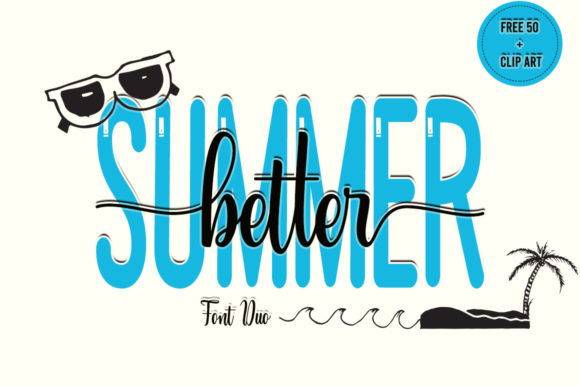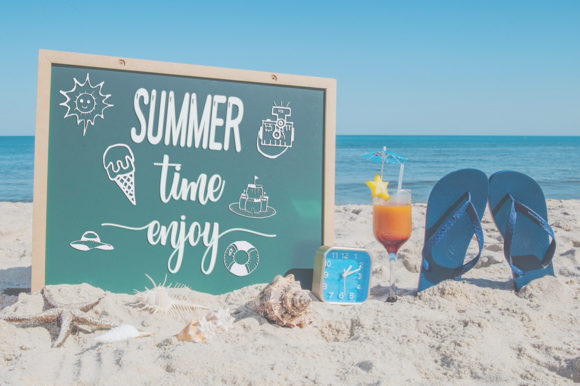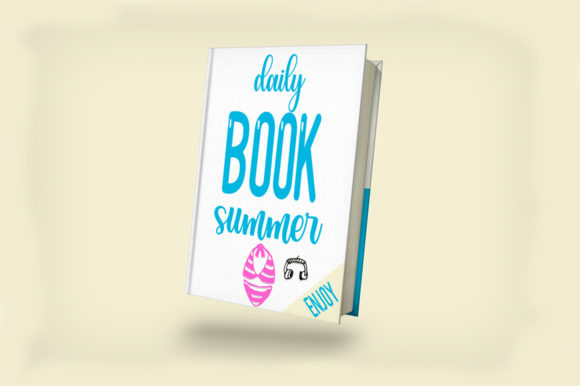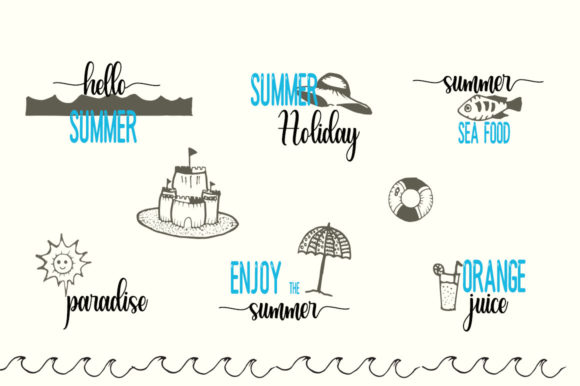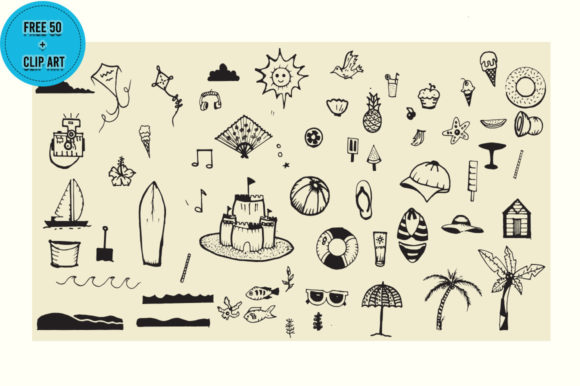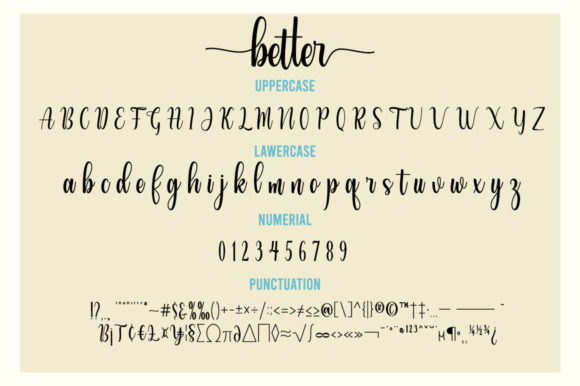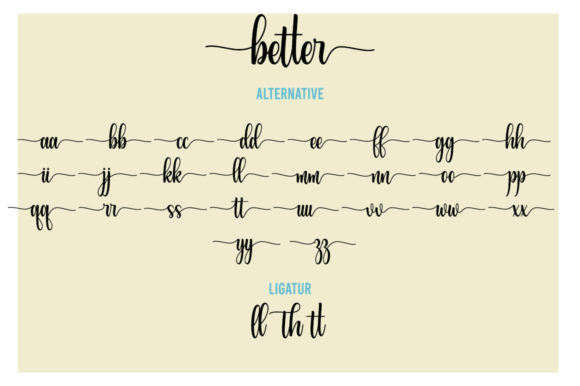
Better Summer Font
About Better Summer Font
Better Summer is a spectacular duo font (sans serif and script). Incredibly versatile, this font fits a wide pool of designs, elevating them to the highest levels. This font is PUA encoded which means you can access all of the glyphs and swashes with ease!